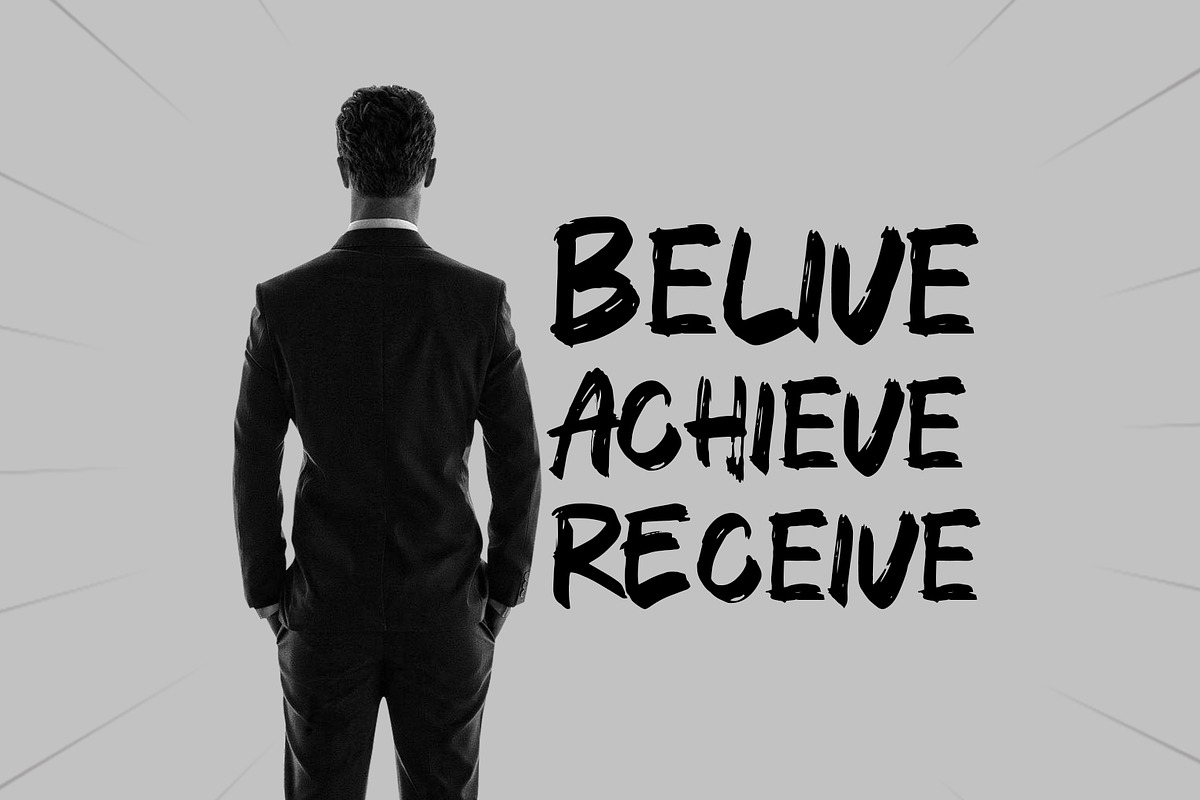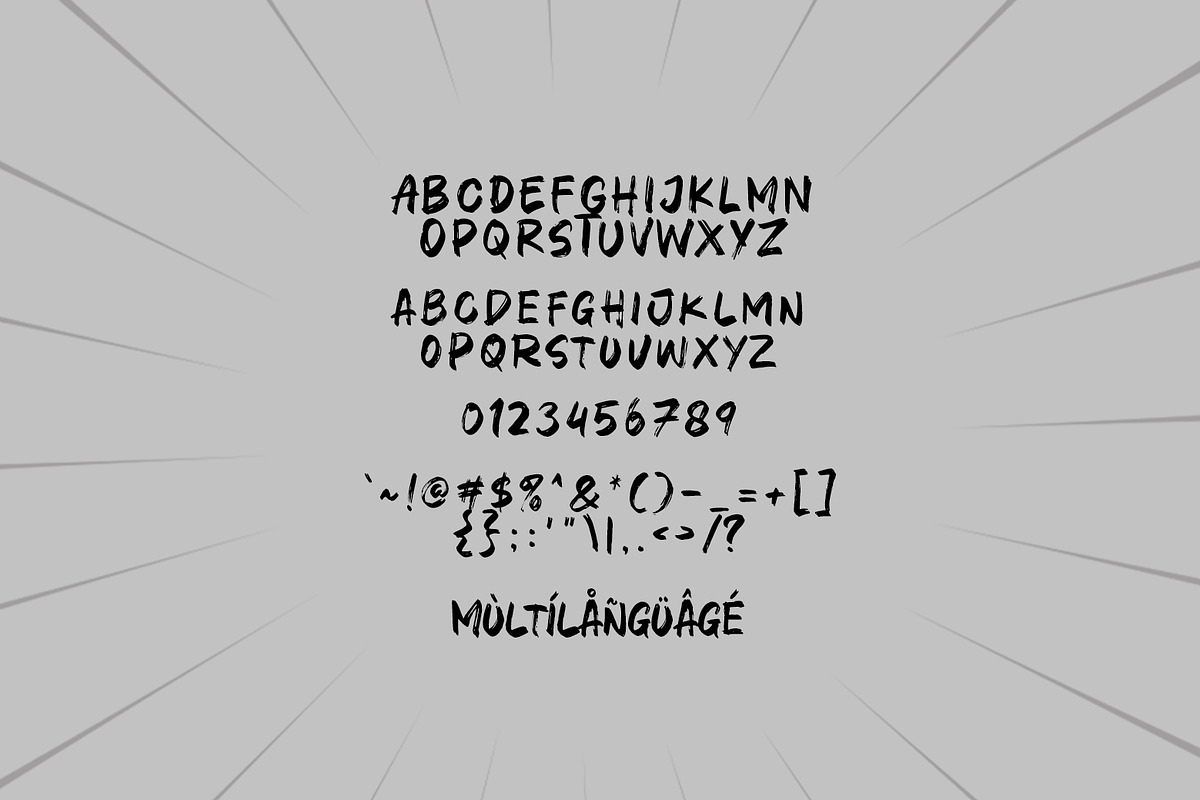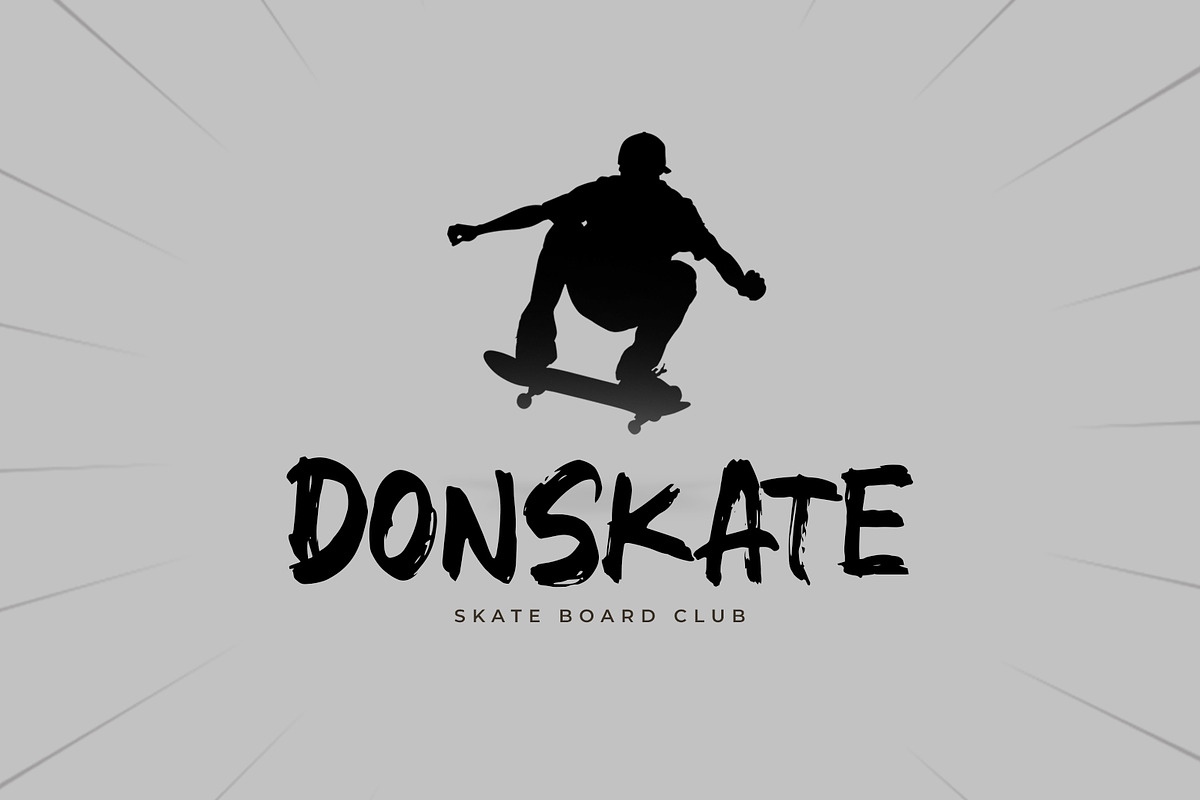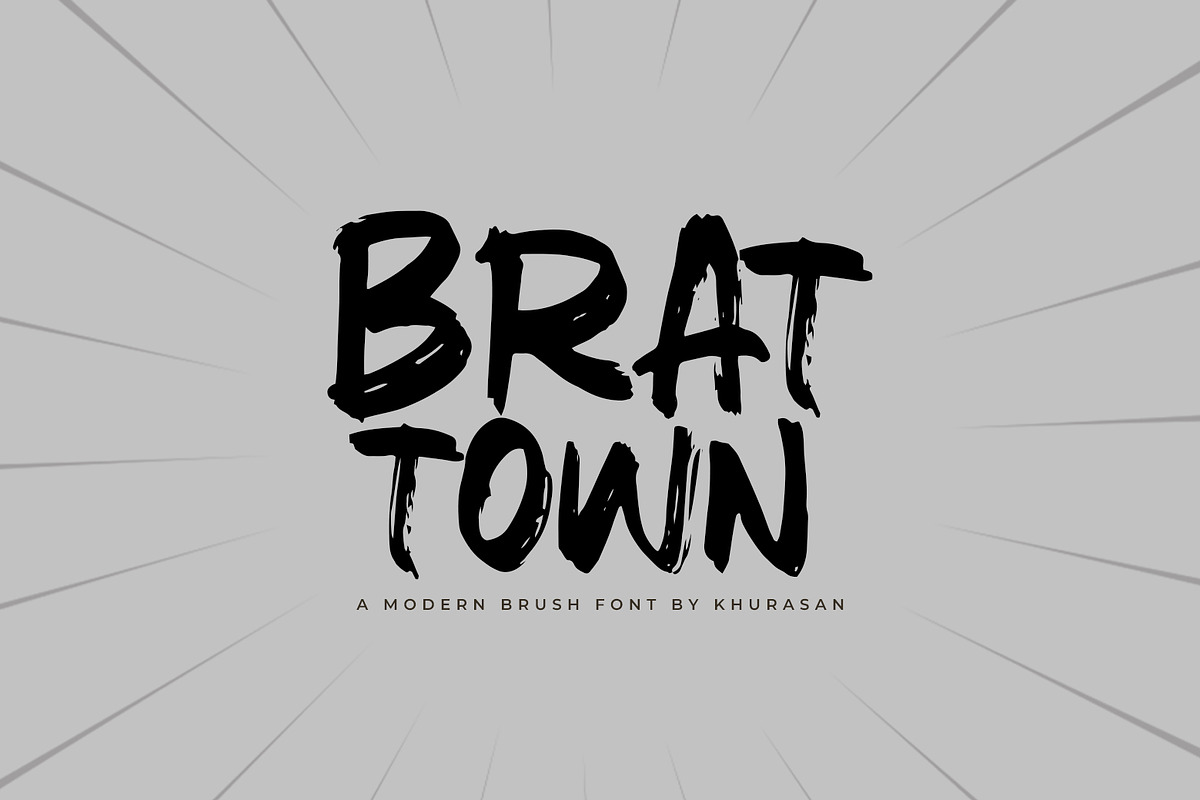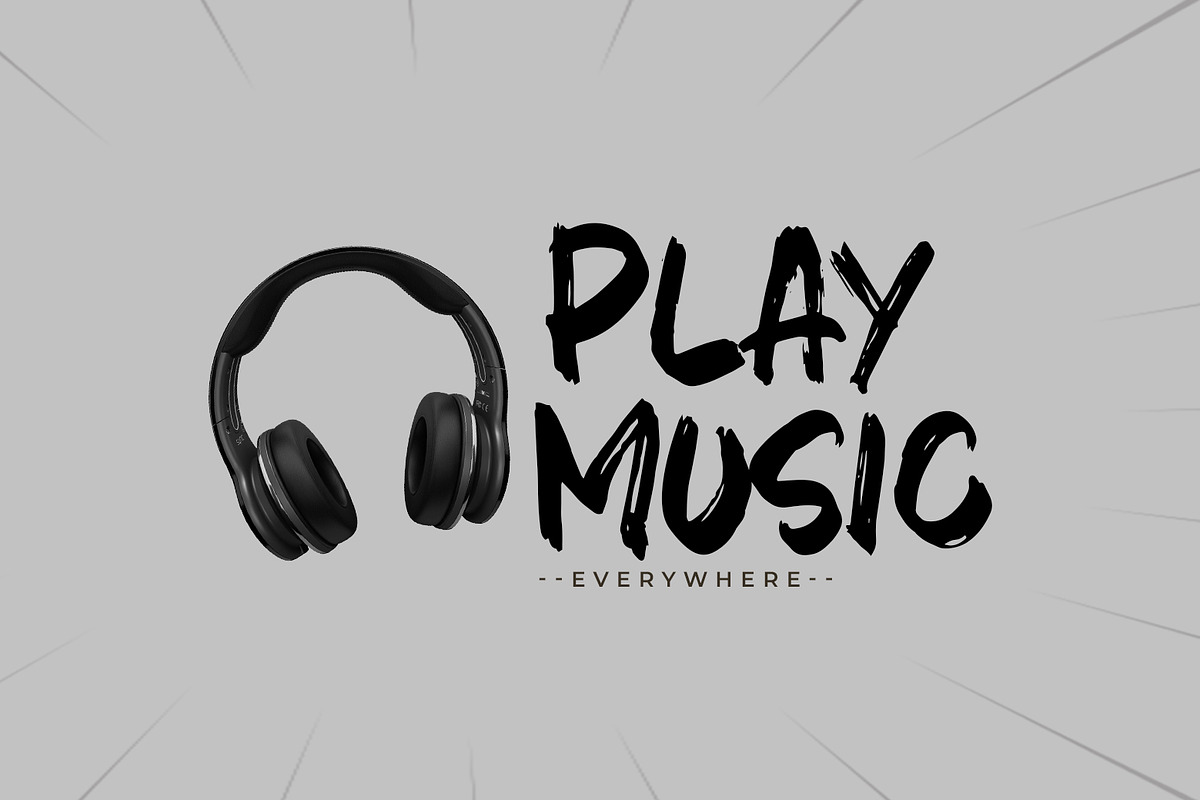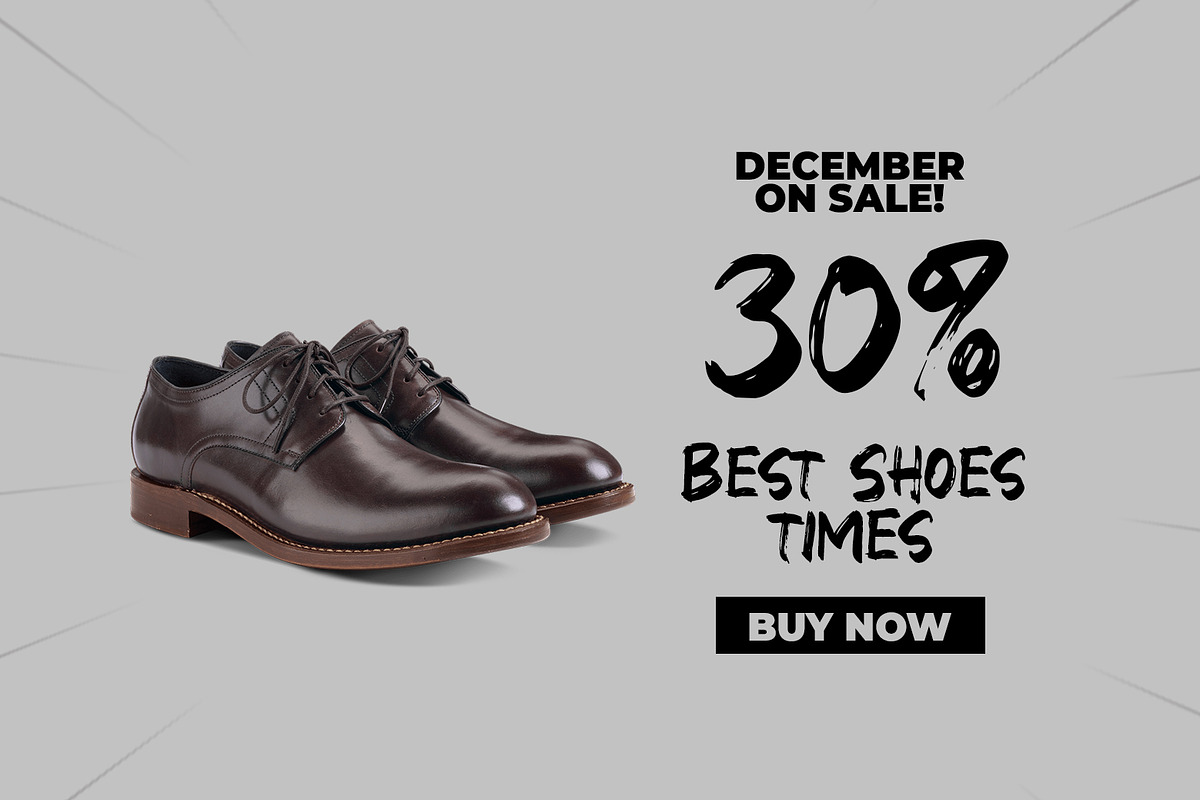
Brat Town
Brat Town is a modern brush font. Short Plan font suitable for logo, branding, greeting card, poster and any design that you create…!
Khurasan